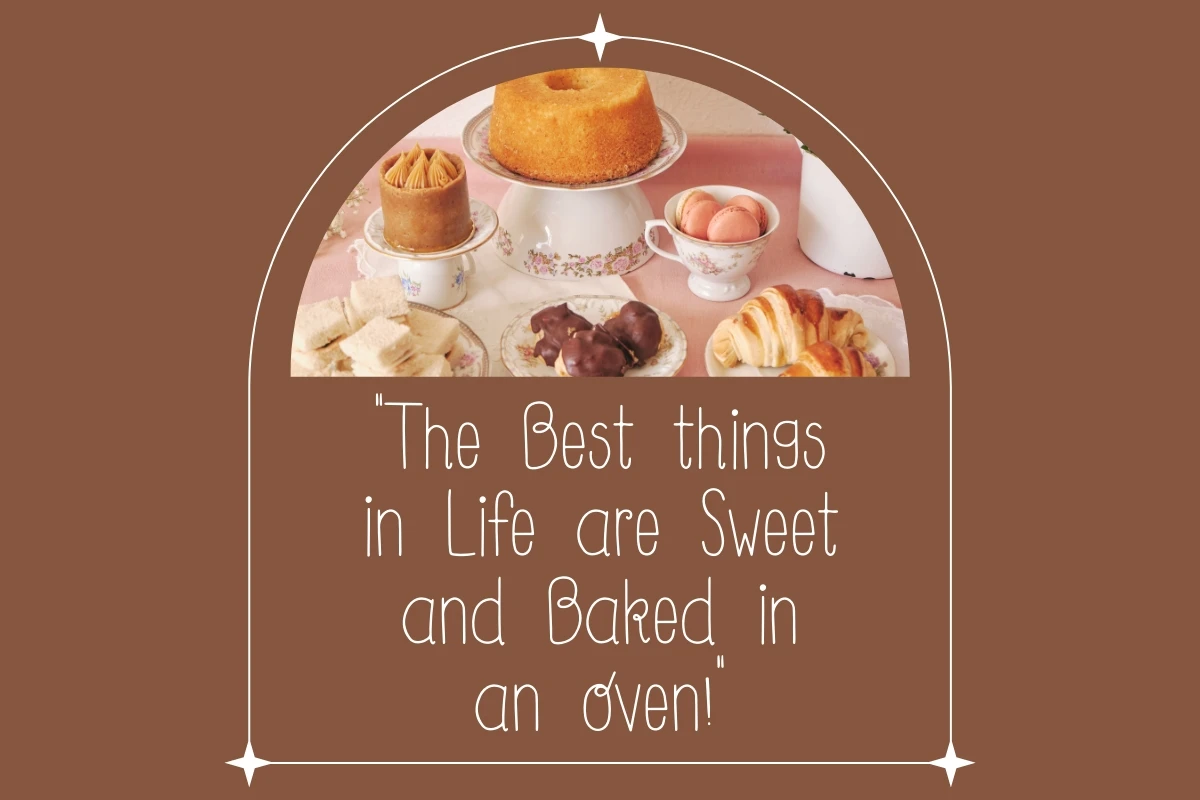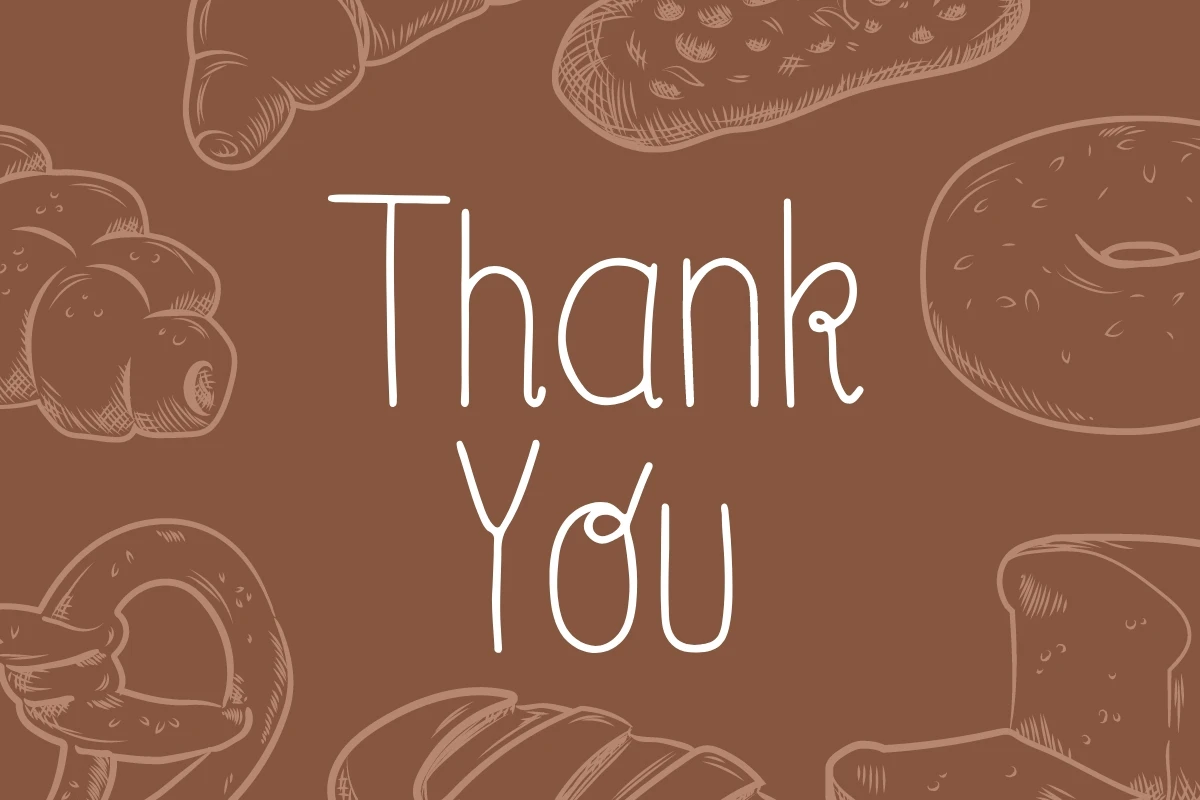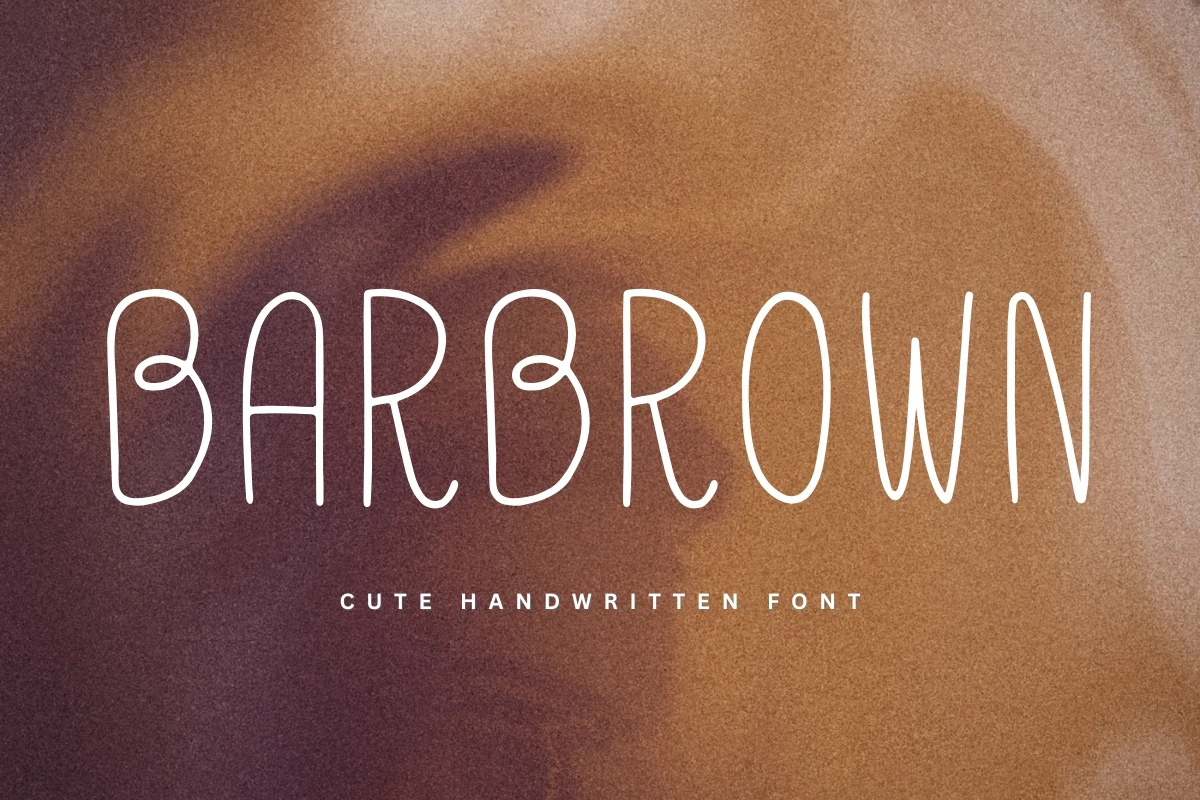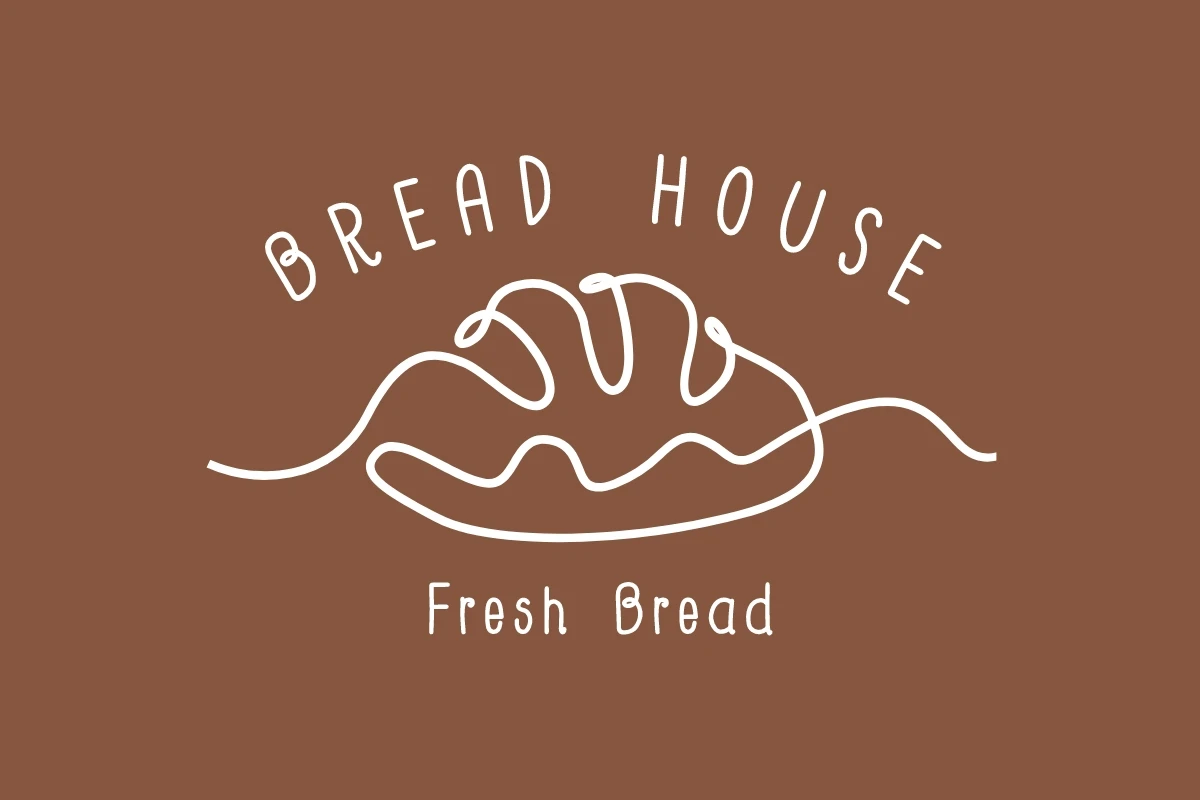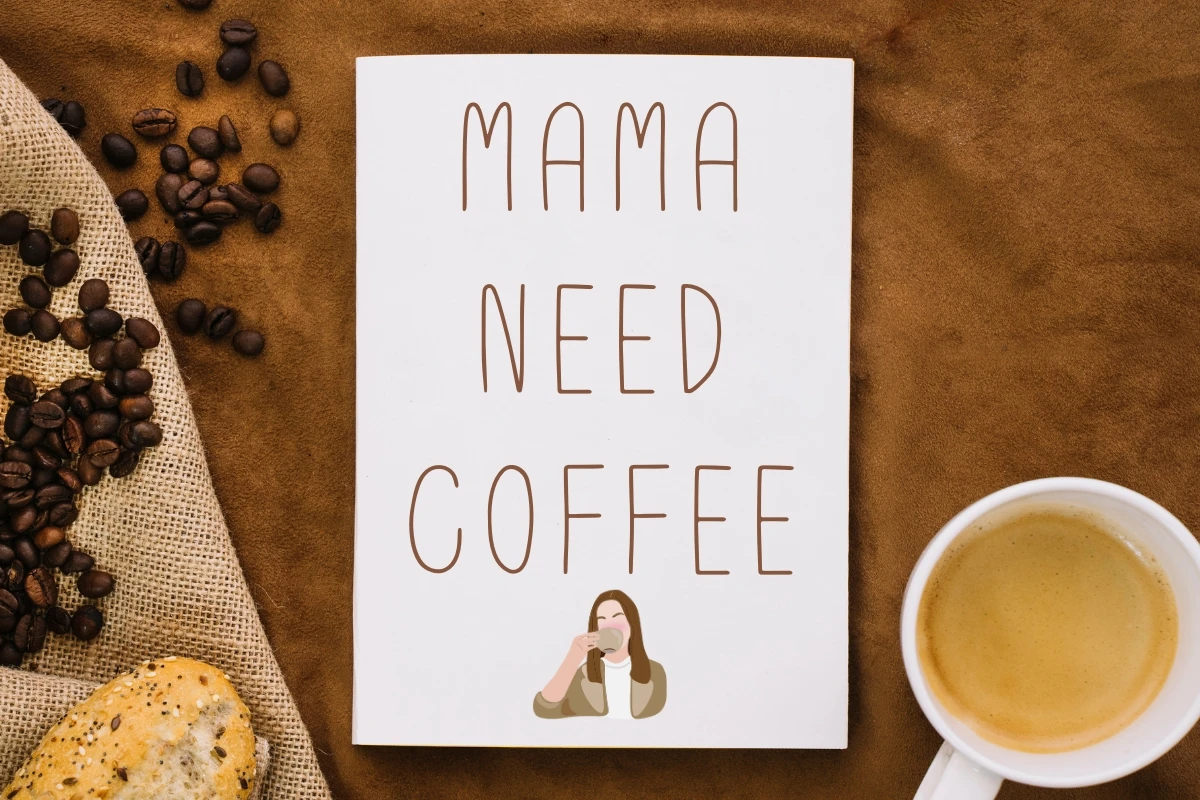
Barbrown is the perfect combination of cute and welcoming. With rounded edges and a friendly appearance, each letter exudes approachability and warmth. This font is perfect for designs that require a touch of playfulness and friendliness, such as invitations, social media posts, and branding materials.